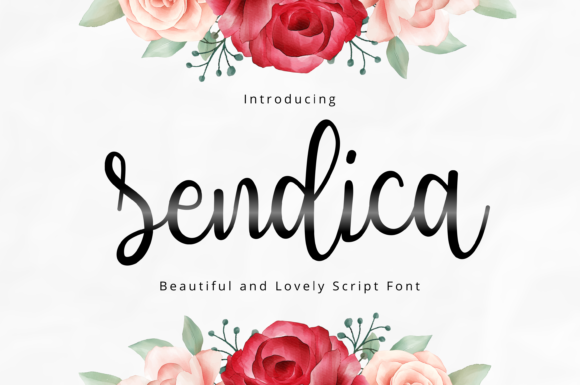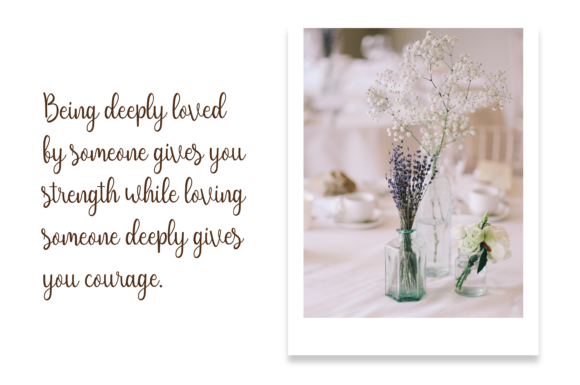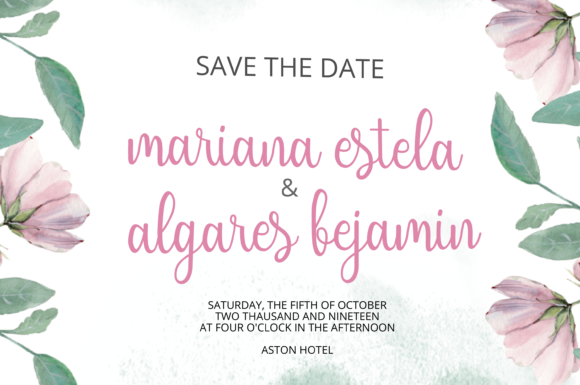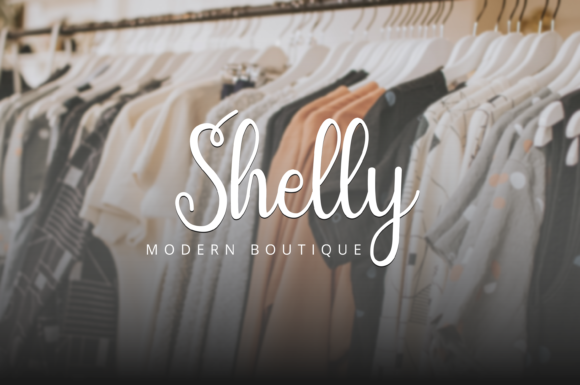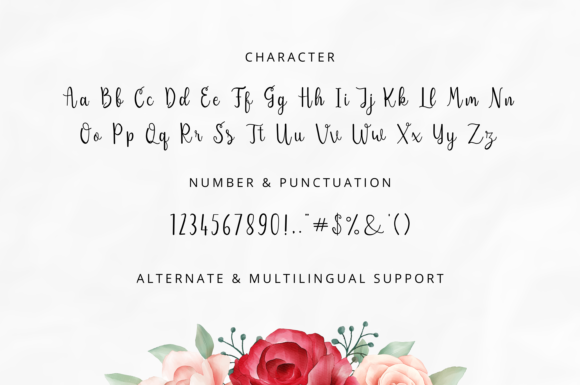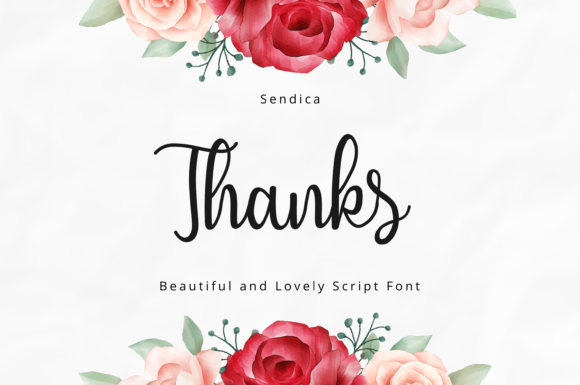
Sendica Font
About Sendica Font
Sendica delivers a playful and charming script experience. It’s the ideal font for adding a dash of elegance to your next design project.